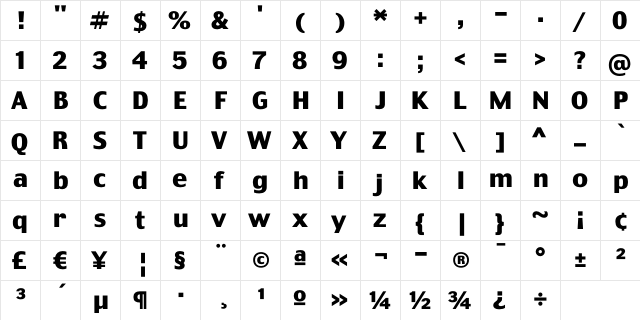
TruthCYR Bold
| Foundry | The Font Bureau, Inc |
| Designer | David Berlow |
Design Context for TruthCYR Typeface
TruthCYR takes a measured approach to typography — its balanced proportions and neutral character make it a reliable workhorse for both digital and print work. The heavy weight commands attention and anchors typographic hierarchies.